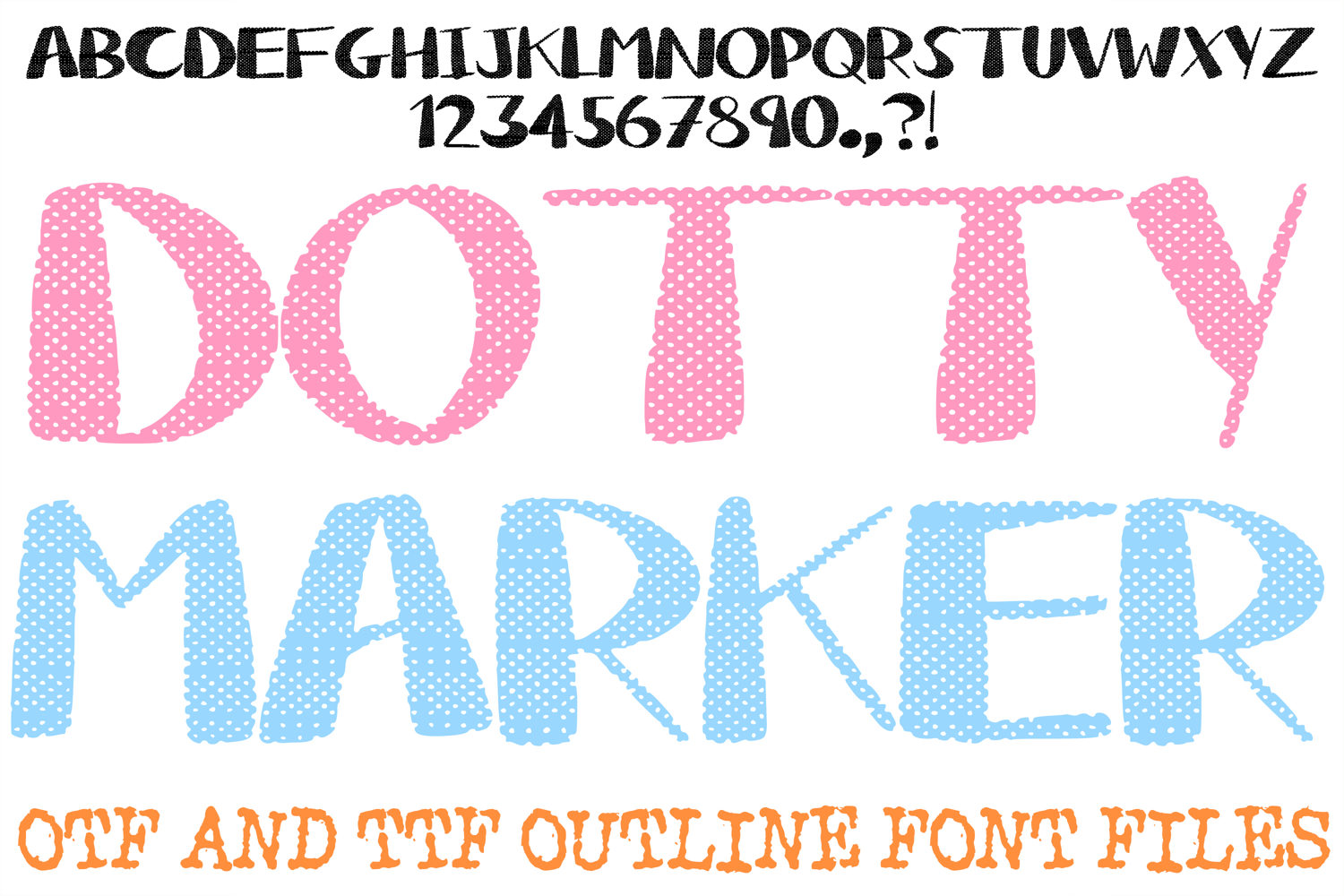
Dotty Marker ABC Font Typeface Chunky Doodle Alphabet OTF
Bring sweet, playful texture to your designs with Dotty Marker, a fully installable display font featuring a delightful polka dot pattern fill inside hand-drawn marker letterforms. Designed with soft, quirky strokes and a fun, textured look, this typeface adds a charming retro feel to any project.
Ideal For:
Paper Crafts & Party Decor: Birthday invitations, baby shower banners, greeting cards, and party favors.
Apparel & Merch: Kids' t-shirts, hoodies, tote bags, aprons, and custom gifts.
Digital & Classroom Projects: Teacher worksheets, bulletin boards, sticker sheets, and social media graphics.
Vinyl & Cutting Projects: Craft machine creations, custom signage, mugs, and decals.